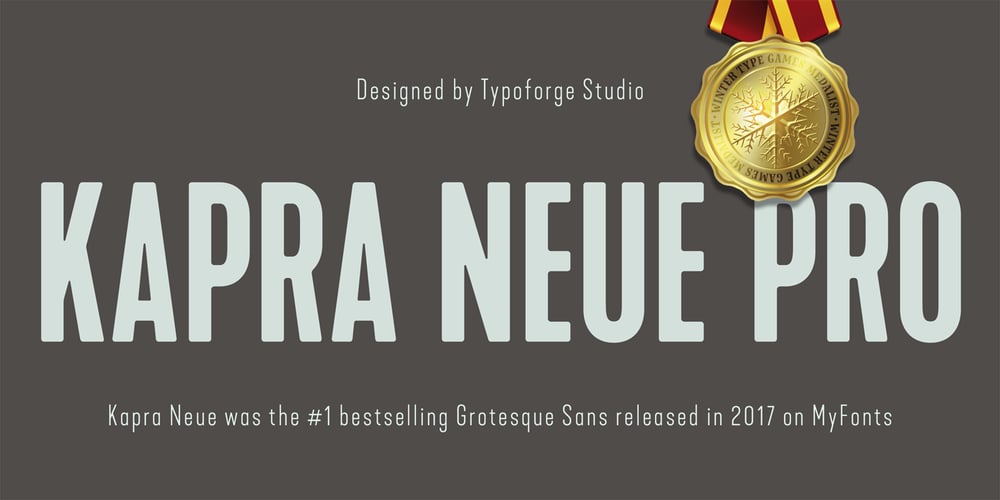
Kapra Neue Pro Font Family was designed by Błażej Ostoja Lniski and published by Typoforge Studio. Kapra Neue Pro contains 93 styles and family package options. Kapra Neue Pro is a younger sister of Kapra Neue – he was the #1 bestselling Grotesque Sans released in 2017 on MyFonts and grandson of Kapra. Now you really have a lot of options to choose! New family is full of everything – 96 weights contain a wide range of instances, from Condensed to Expanded, everything with rounded corners or with sharp ones. Now, font has also: small caps, cyrillic script, and old-style figures. Kapra Neue Pro is inspired by a “You And Me Monthly” magazine, published by National Magazines Publisher RSW “Prasa” in Poland, from May 1960 till December 1973.